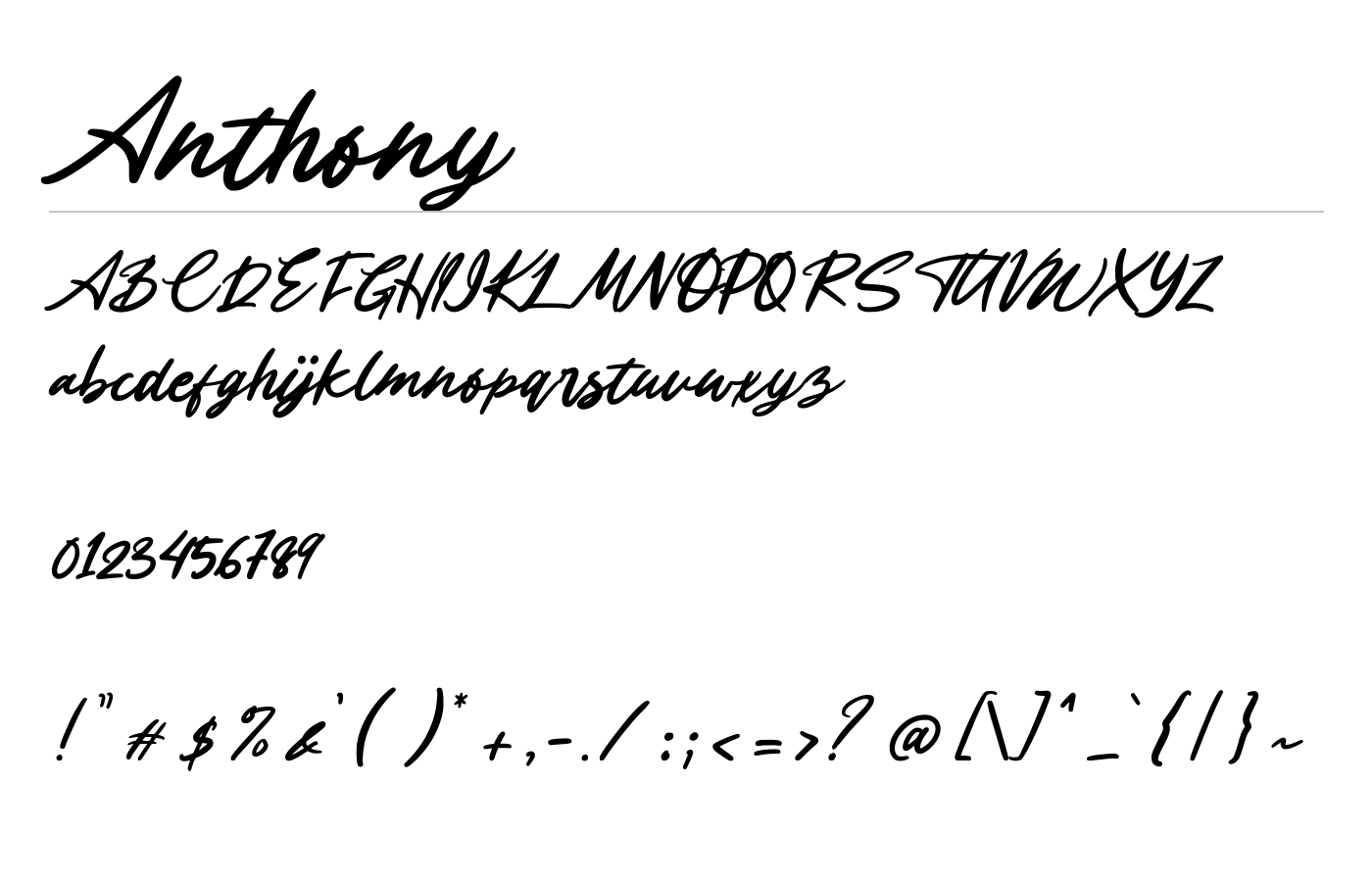
Anthony Font is a lively and elegant script typeface with a natural handwritten feel, featuring smooth, flowing strokes and a medium weight that balances readability with personality. Its slightly casual yet refined style makes it perfect for creative branding, invitations, or personal projects where a touch of warmth and sophistication is desired. This font works beautifully for headlines and logos that seek an approachable yet stylish appearance.
Anthony Font
About Anthony Font